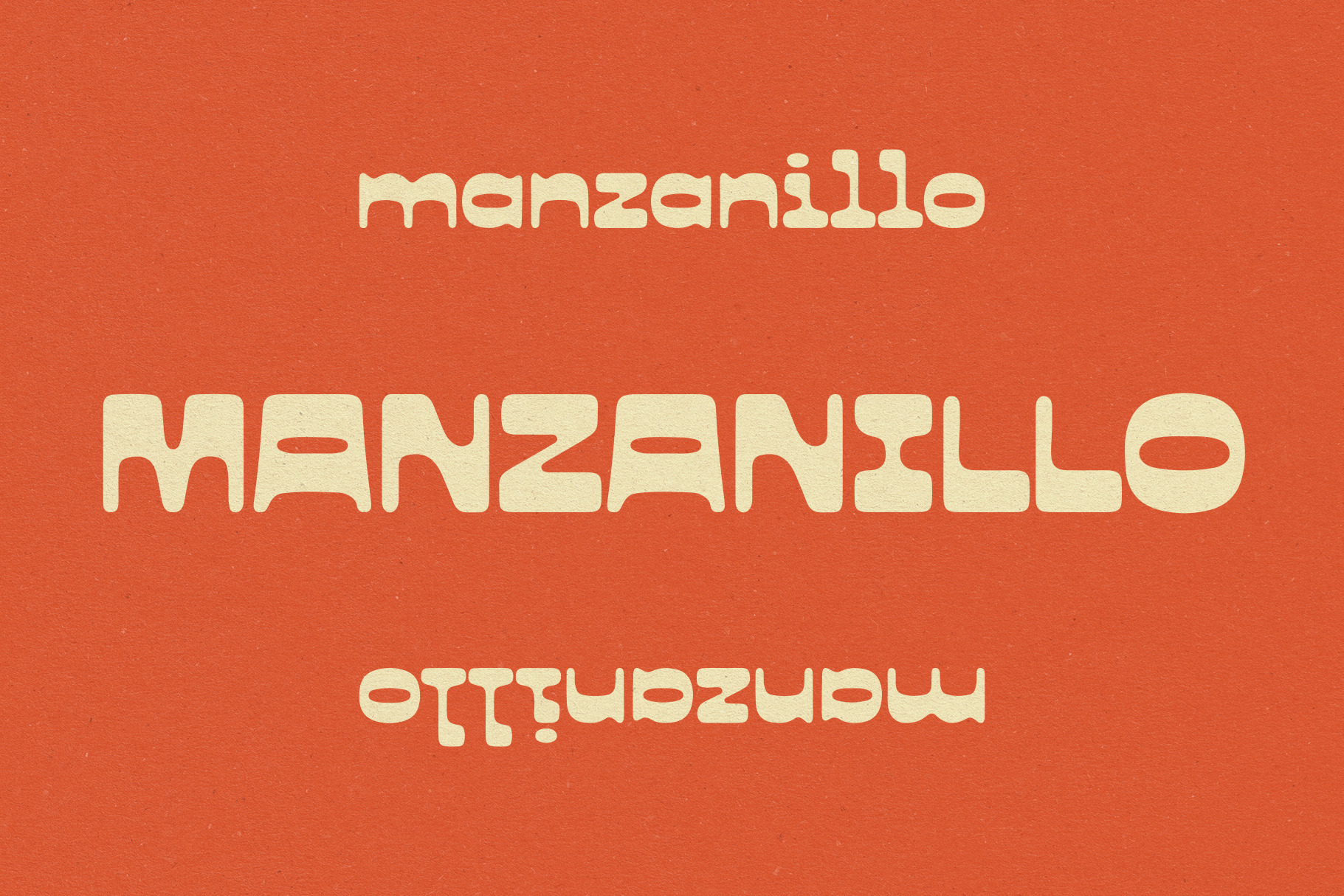
Manzanillo Typeface
Manzanillo is a chunky bold typeface inspired by a recent trip to Playa Manzanillo in Mexico. I wanted to make something that looks great in all-caps for logos and design projects but is equally readable for use in posters and mor text-heavy work. I'm super happy with how it came out and think it compliments the collection so well!